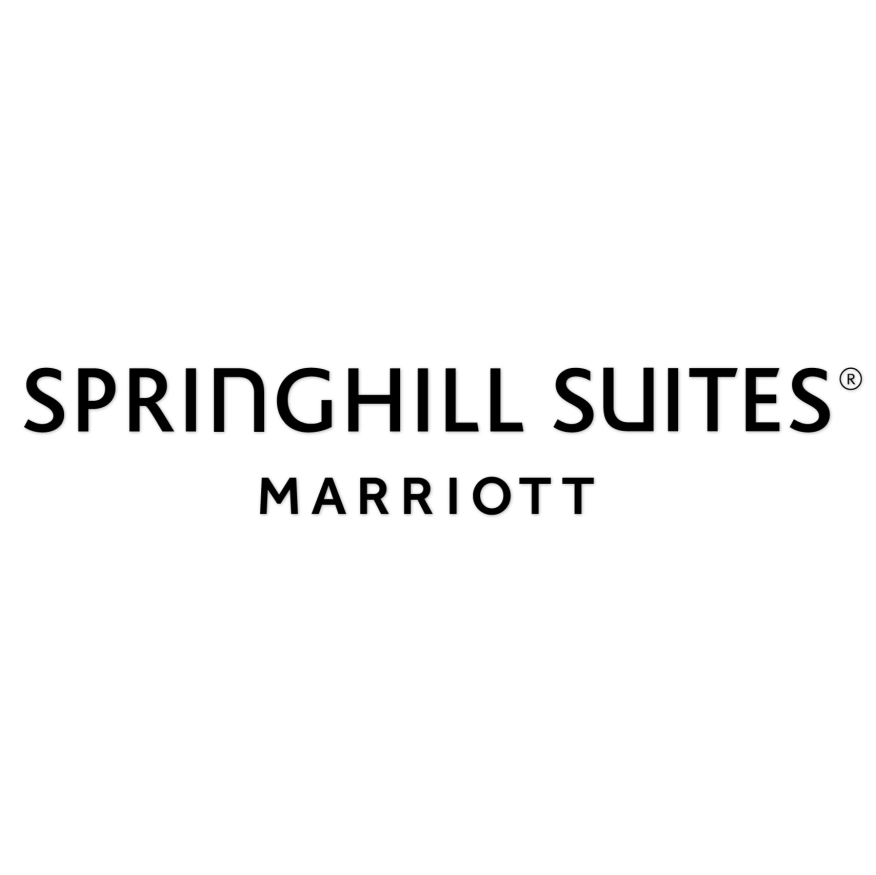
SpringHill Suites Font
Fonts in UseSpringhill Suites is a hotel brand owned by Marriott International offering all-suite accommodations with separate living areas and bedrooms, as well as amenities such as complimentary breakfast, free Wi-Fi, fitness centers, and meeting spaces.
The hotel brand's logo font seems to be a customized version of Bliss Medium, a humanist sans serif by Jeremy Tankard. The text "Marriott" below the logo is set in Effra Medium, a font designed by Dalton Maag.